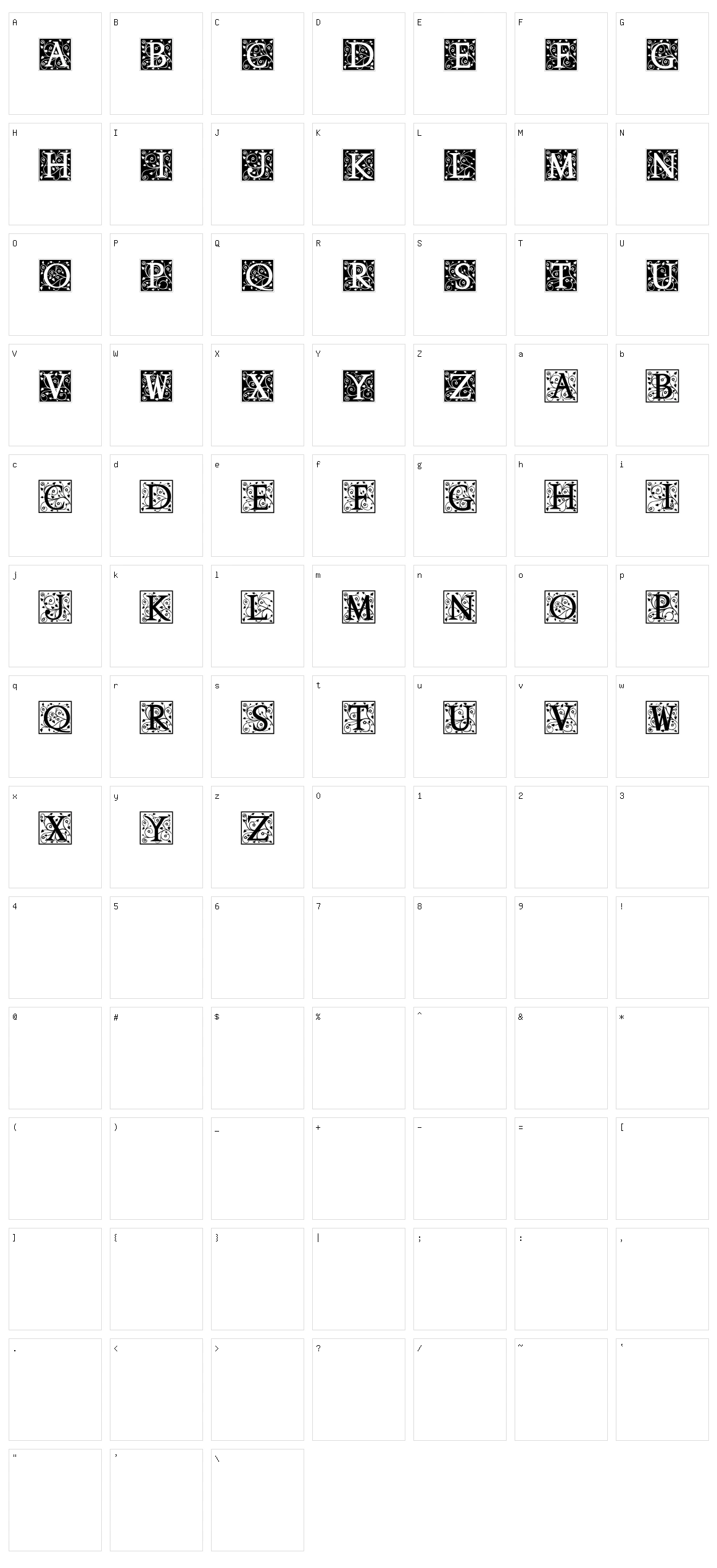
Anabel
Anabel is based on Nabel Initial Caps from the Aridi Graphics Vol. 1
Anabel contains 54 characters in the uppercase and lowercase letters,
and a normal space character. The characters in the lowercase letters
is a negative/reverse color of the characters in the uppercase letters.
This is version 1.01 of the font, with minor corrections to two glyphs.